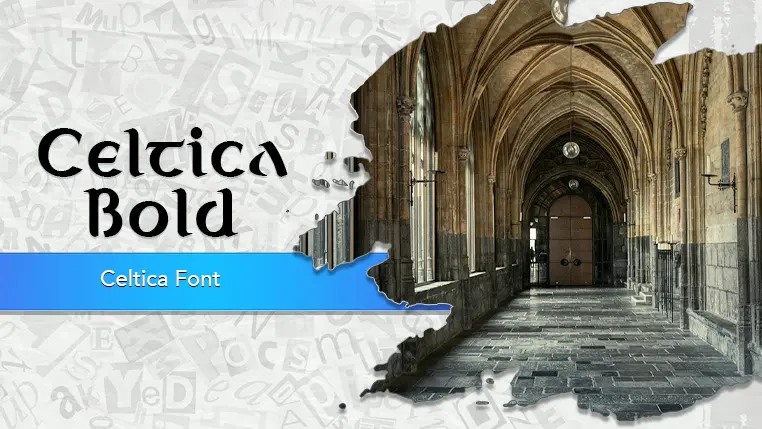
The Celtica font family may be ideal for you if you enjoy working on an artistic design project. The lively, expressive look of this typeface, which was created by Wojciech Kalinowski, makes it ideal for Historical and Themed Designs. Its unique and decorative appearance makes it a strong choice for the titles of fantasy novels, historical fiction, or even academic publications on ancient history. It works well for headlines, headings, and short blocks of text where you want to create a strong visual impact. It's generally not recommended for long paragraphs of body text due to its uncial style, which can be less legible at small sizes. Whether it's for scrapbooking, personal art projects, or custom graphic design, Celtica adds a touch of old-world charm. and other light-hearted visual projects.
Bold, Bold Oblique, Book, Book Oblique are the four primary font styles of the Celtica font family. You may build dynamic, visually appealing text layouts with the distinct flair that each style offers. With crisp, readable lines and a relaxed tone.